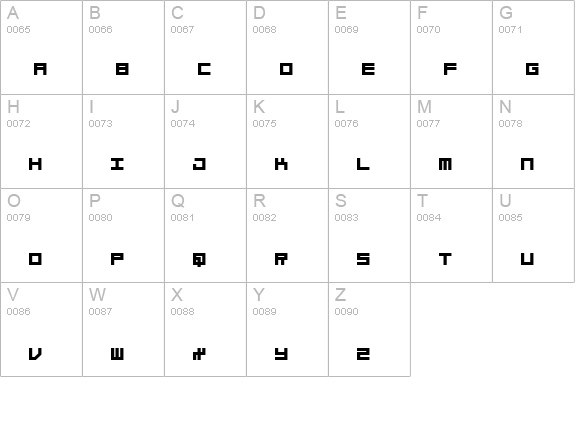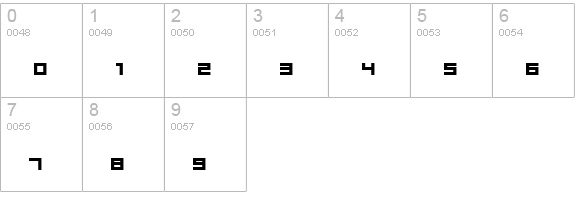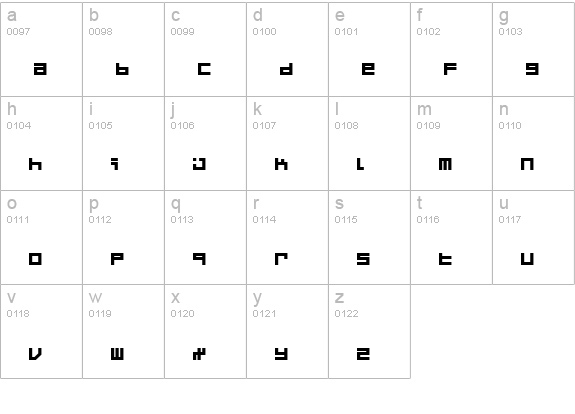
Micro Font Details
Micro font is a sleek and modern typeface designed for digital displays and small text sizes. With its clean lines and compact design, Micro font is perfect for creating a professional and polished look in any project. This versatile font is ideal for use in user interfaces, websites, mobile apps, and more. Best of all, Micro font is completely free to use! You can easily download this font for your personal and commercial projects at FontsMarket.com. Whether you need a font that is easy to read in small sizes or want to add a touch of sophistication to your designs, Micro font is the perfect choice. Download it today and elevate your typography game with this stylish and functional typeface.